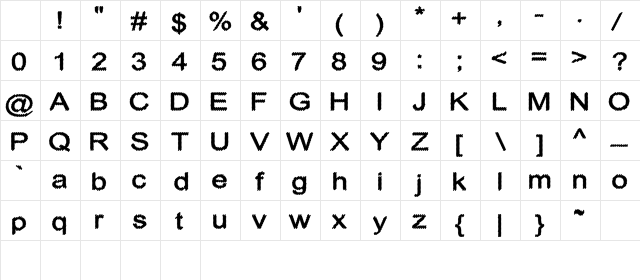
Complete Cylonic Crossdraft Regular glyph index. Displaying only characters natively supported by Cylonic Crossdraft Regular font.
Cylonic Crossdraft is a composed and adaptable typeface that performs quietly and consistently across a wide range of design contexts.